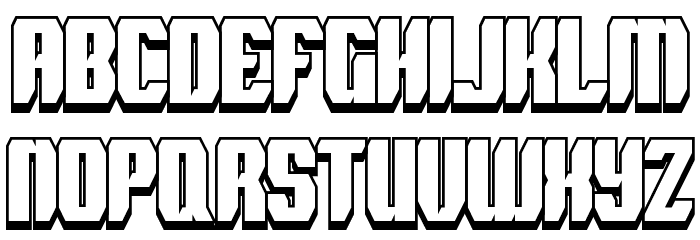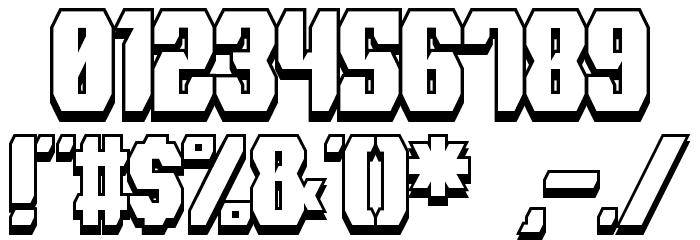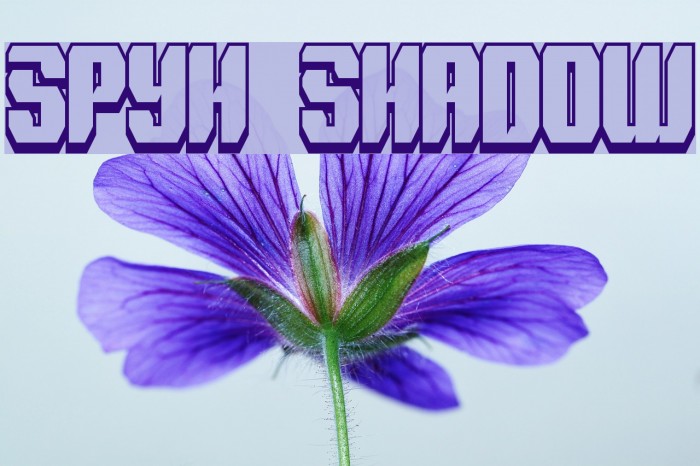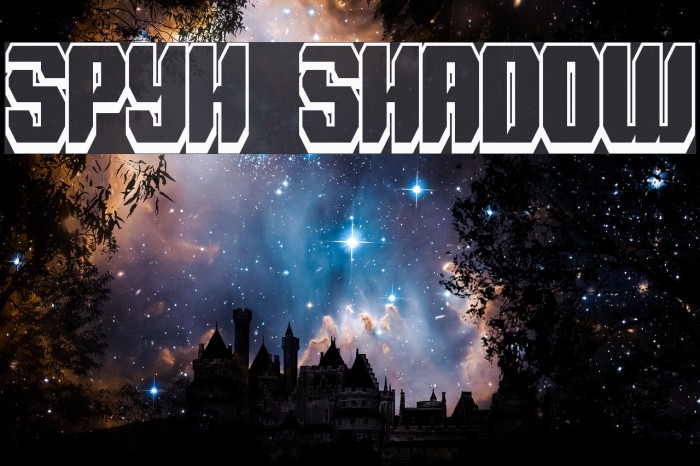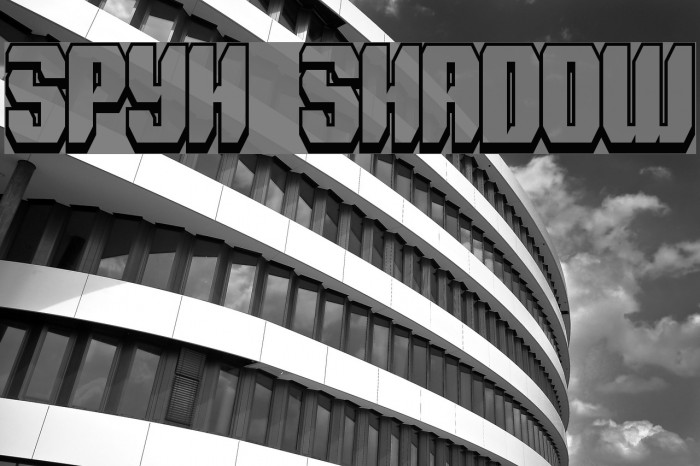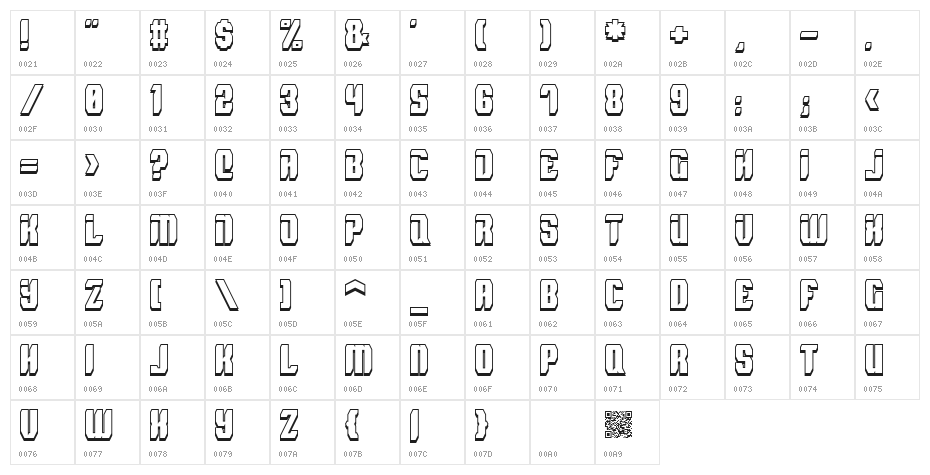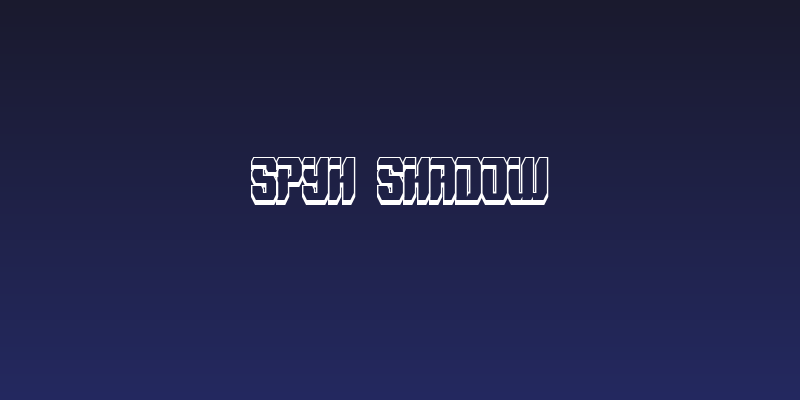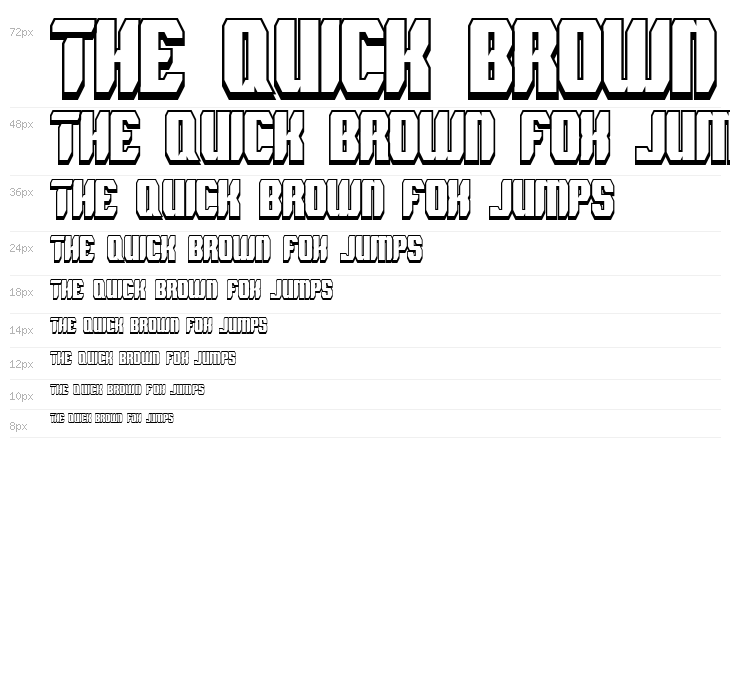
Spyh Shadow Font
This font features a bold, geometric design with a distinct shadow effect that gives it a three-dimensional appearance. The characters are blocky and angular, with sharp edges and a strong presence. The uppercase and lowercase letters maintain a consistent style, while the numerals and special characters integrate seamlessly with the overall design. The shadow effect adds depth and makes the text stand out, making it ideal for attention-grabbing headlines or titles. The font's unique style is both modern and slightly retro, reminiscent of arcade or video game aesthetics.
A bold, geometric font with a three-dimensional shadow effect.
- Proposed Projects: Ideal for video game titles, posters, logos, and any project requiring a bold, eye-catching typeface.
- Overall Style: Modern, Retro